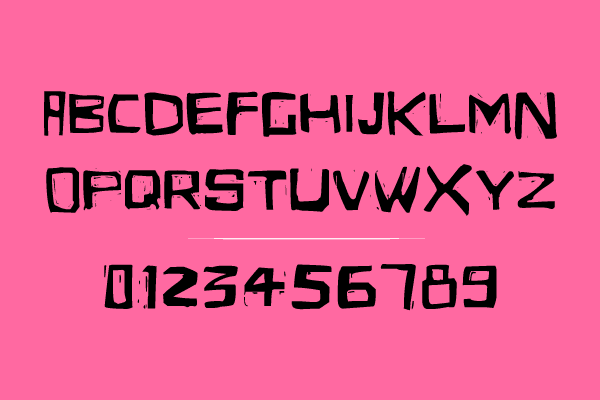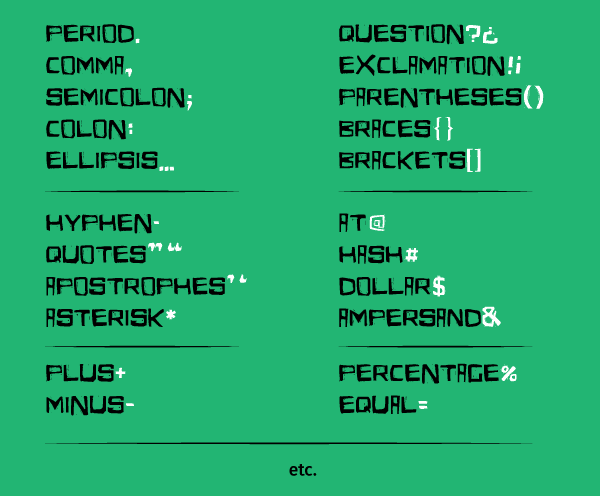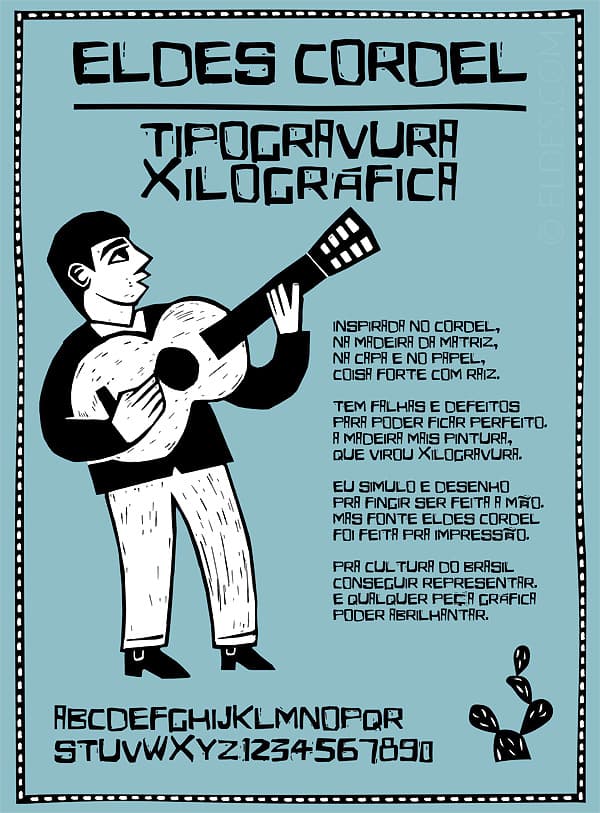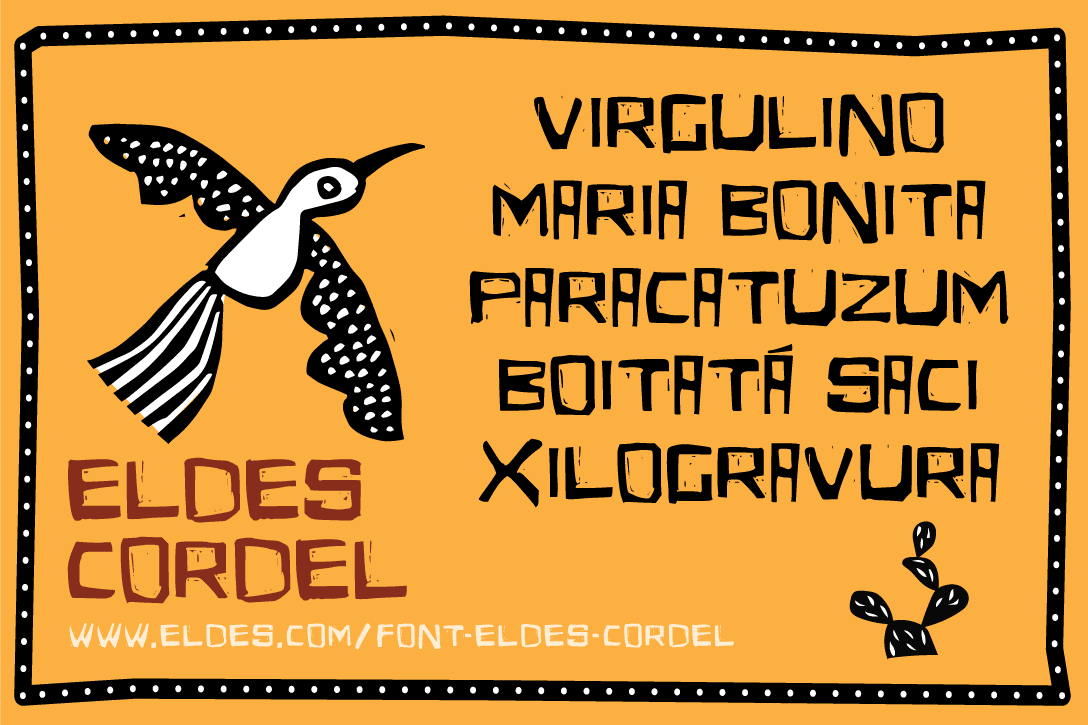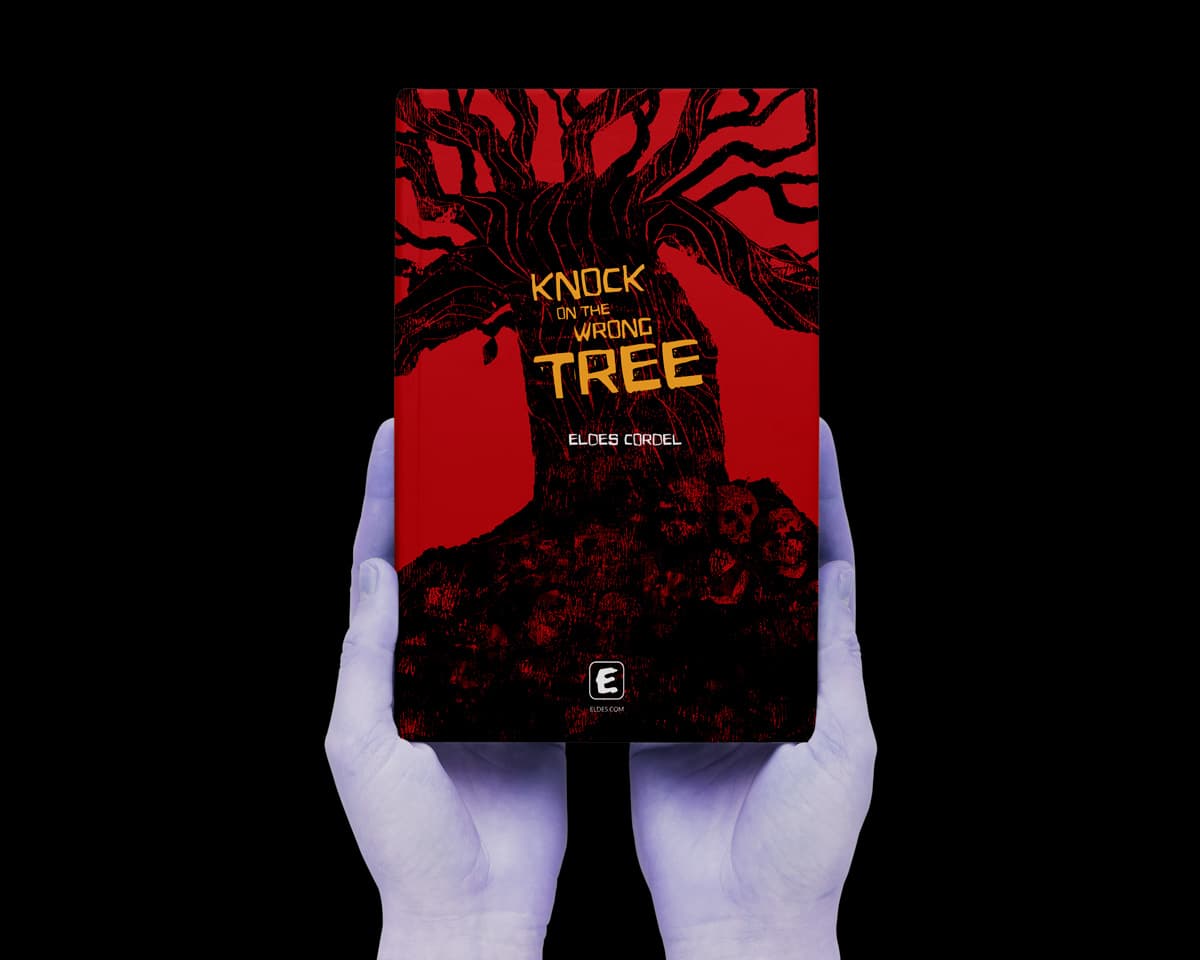
Font Eldes Cordel
Font inspired directly in the woodcut — especially in the covers of the Cordel literature booklets — and originally created mainly to compose graphic pieces that have Brazilian culture as reference and or that want to transmit the concept of handmade, this type brings some of the visual characteristic of such printing technique, such as the gaps and inaccuracies of the notch in the wood matrix.
A horror font
Because of your quirky glyphs design, it's a suitable font for create a atmosphere of mystery in horror graphic pieces.